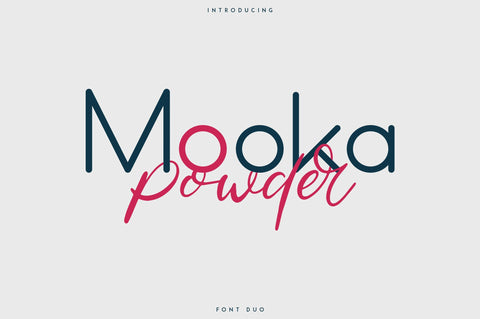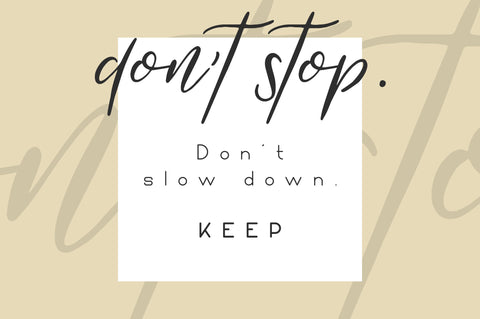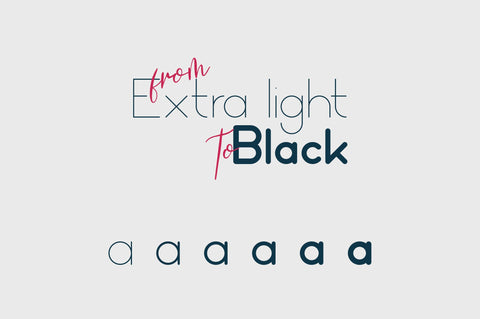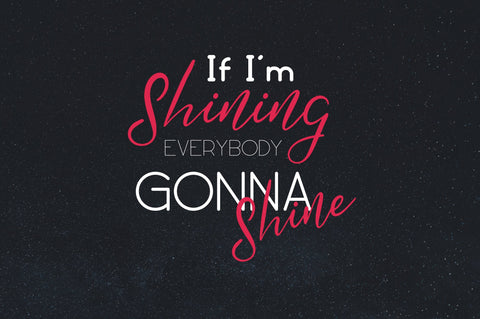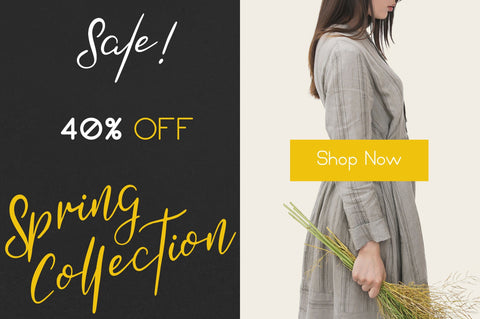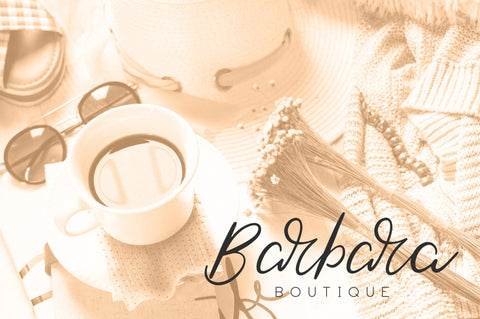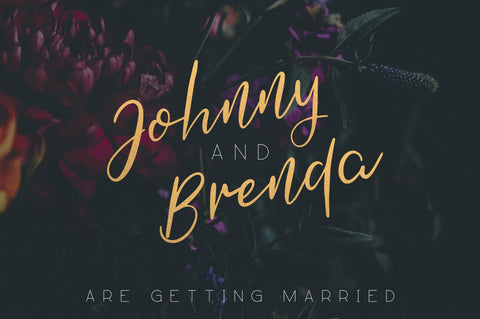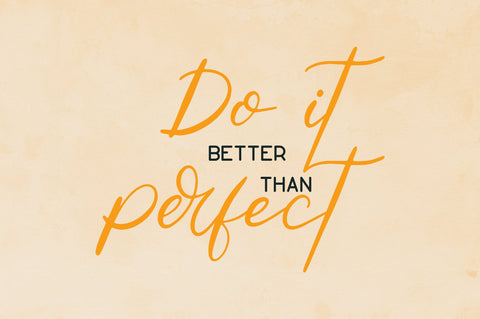
Mooka Powder - font duo
INTRODUCING Font duo Mook Powder
Mooka Powder is modern, clean font duo with total of 7 font styles, ligatures and multilingual support. It's a very versatile font that works great in large and small sizes.
Mooka Powder is perfect for branding projects, home-ware designs, product packaging, magazine headers - or simply as a stylish text overlay to any background image.
- Clean
- Mooka - Extra light, light, regular, bold, extra bold, black
- Powder modern script